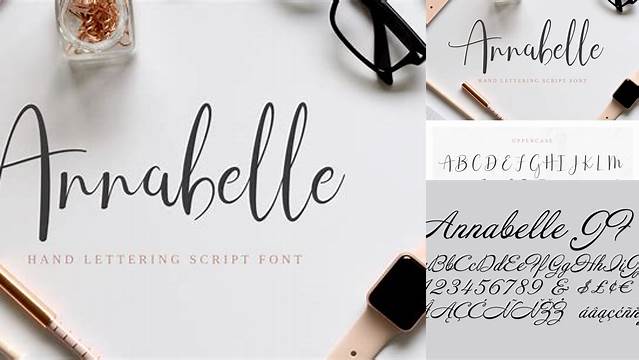
1. What is Annabelle Font?
Annabelle font is a beautiful hand-lettered script that captures the essence of natural, flowing calligraphy. It's designed to emulate the look of authentic handwriting, making it ideal for projects that need a personal and heartfelt touch. Its elegant curves and delicate strokes make it stand out, adding a touch of sophistication to any design. This font style is characterized by its fluidity and readability. The elegant swirls make it appealing to the eyes and it is a beautiful font to add in your design. This font is also popular for its usage in logos, wedding invitations, and even social media posts. Its versatility allows designers to use it in any style of design, whether it is vintage or modern. The natural look of the font also enhances the beauty of the design by providing a personal touch that is difficult to replicate with generic fonts.
2. Key Features of the Annabelle Script Font
The Annabelle script font comes packed with features that make it a joy to work with. From its stylistic alternates to its swashes and ligatures, every detail is crafted to enhance your design. It also comes with a smooth baseline and consistent letterforms. It is optimized for both print and digital media, ensuring that your text looks crisp and clear no matter where it's displayed. Its adaptability to different design software and platforms enhances its practicality. The font comes with a wide range of glyphs, allowing for extensive customization and creativity. This ensures that designers can find the perfect character for any situation, adding more flexibility in crafting any design. This font style has become one of the most sought out fonts because of its unique features. It comes with different weights and styles, providing a perfect hand lettering script for any situation. In addition, the Annabelle Script Font is also compatible with different operating systems, which makes it accessible to many designers.
5. Using Annabelle Font in Logos
The Annabelle font makes a fantastic choice for logo design, especially for brands aiming for a touch of elegance and personalization. Its flowing script lends a sense of sophistication and approachability, making it ideal for businesses in the beauty, fashion, or lifestyle industries. When using Annabelle in a logo, consider the overall brand identity and ensure the font aligns with the desired message. Simplicity is key; avoid overcrowding the design with too many elements that could distract from the font's beauty. It is also important to consider the legibility of the font in different sizes. A well-designed logo using Annabelle font can create a lasting impression and help a brand stand out in a competitive market. Using this font in a logo will create a feeling of elegance and sophistication. The logo would represent a brand identity that is both memorable and recognizable.
6. Annabelle Font for Wedding Invitations
For wedding invitations, the Annabelle font can set a romantic and sophisticated tone. Its elegant script adds a touch of timeless beauty, making it perfect for announcing your special day. Pair it with classic serif fonts for a balanced and refined look. It is also important to consider the paper stock and printing method when designing wedding invitations. High-quality materials and professional printing can enhance the font's appearance and create a luxurious feel. You can also incorporate embellishments like foil stamping or embossing to add a touch of glamour. Wedding invitations are often kept as keepsakes, so ensuring they are visually appealing and well-crafted is crucial. Annabelle font is an excellent choice to make these invitations memorable and beautiful. The sophisticated tone that this font gives off makes it an ideal choice for this type of event.
8. Annabelle Font vs. Other Script Fonts
Comparing Annabelle font with other script fonts can highlight its unique characteristics and help you determine if it's the right choice for your project. While many script fonts offer similar aesthetics, each has its own distinct features. Consider factors such as letterform design, spacing, and overall readability when making your comparison. Some script fonts may be more formal, while others are more casual and playful. It is also important to evaluate the font's versatility and its suitability for different design applications. By comparing Annabelle with other script fonts, you can make an informed decision and ensure that you choose the perfect typeface for your needs. This process helps you to appreciate the subtle nuances of each font and its impact on the overall design.
9. Pairing Annabelle Font with Other Fonts
Choosing the right font pairings can elevate your design and create a harmonious visual experience. Annabelle font pairs beautifully with classic serif fonts like Garamond or Times New Roman. These pairings create a balance between elegance and readability. Sans-serif fonts like Helvetica or Arial can also be used to create a modern and clean contrast. Experimenting with different pairings can help you discover unique and visually appealing combinations. Consider the hierarchy of your design and use different fonts to emphasize key elements. A well-chosen font pairing can enhance the overall aesthetic and improve the readability of your text. It also adds a sense of sophistication and professionalism to your design.
30. Mastering the Art of Hand Lettering with Annabelle Font
Mastering the art of hand lettering with Annabelle font takes practice, patience, and a keen eye for detail. Start by familiarizing yourself with the font's letterforms and understanding its unique characteristics. Experiment with different styles, techniques, and tools to develop your own personal style. Study the work of other hand lettering artists to gain inspiration and learn new approaches. Be willing to make mistakes and learn from them. With dedication and perseverance, you can master the art of hand lettering with Annabelle font and create stunning visual compositions. Also, always strive to improve your skills and expand your creative horizons.